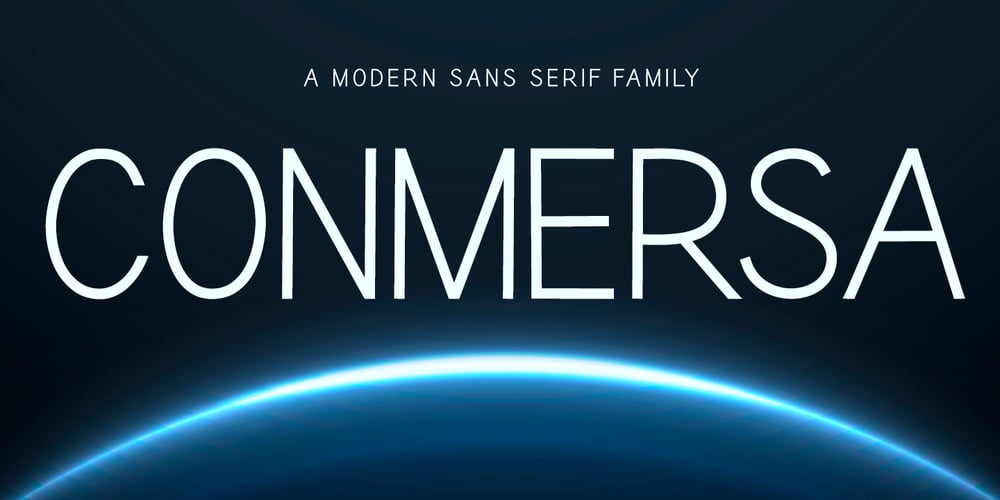
Conmersa Font Family was designed by Agung Eko Nugroho and published by AEN Creative Studio. Conmersa contains 4 styles and family package options. Conmersa is a minimal and neat sans serif font. It can easily be matched to an incredibly large set of projects, so add it to your creative ideas and notice how it makes them stand out!